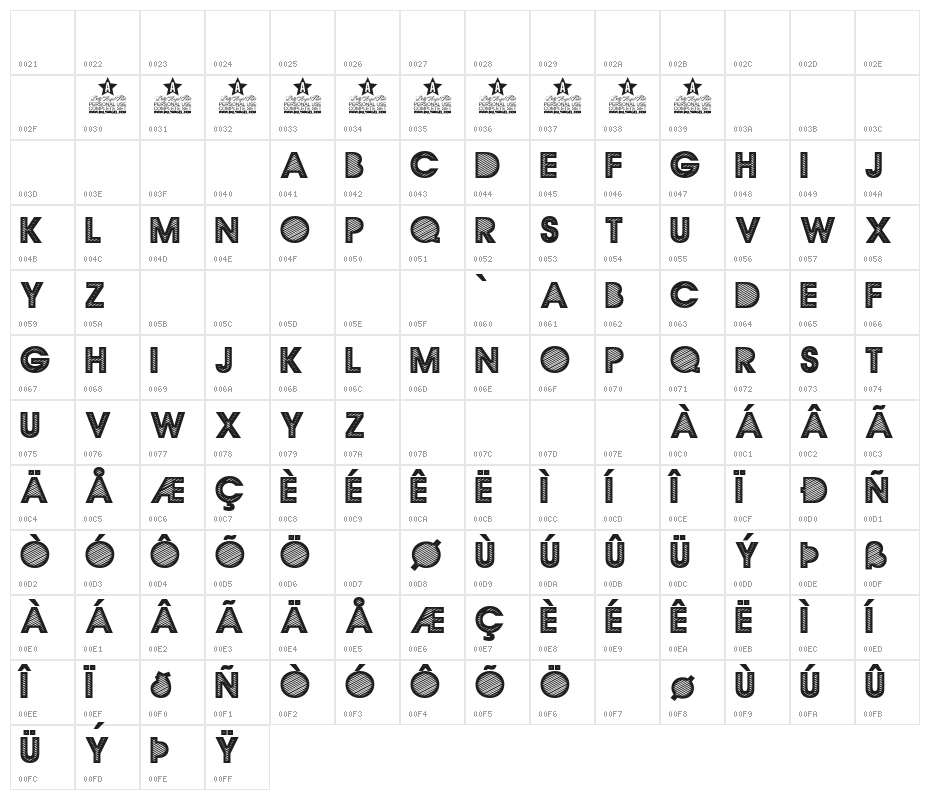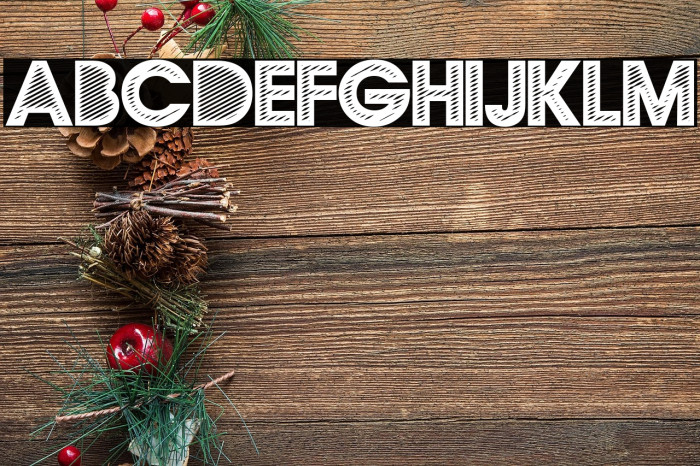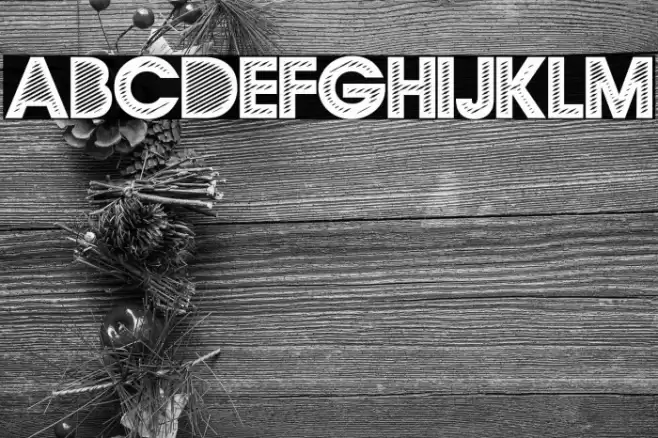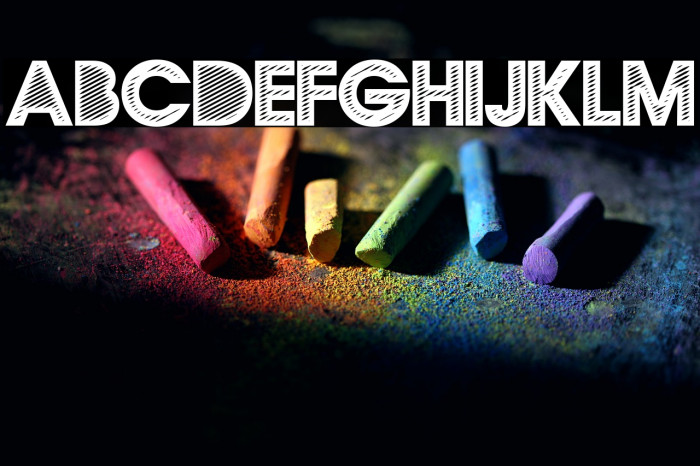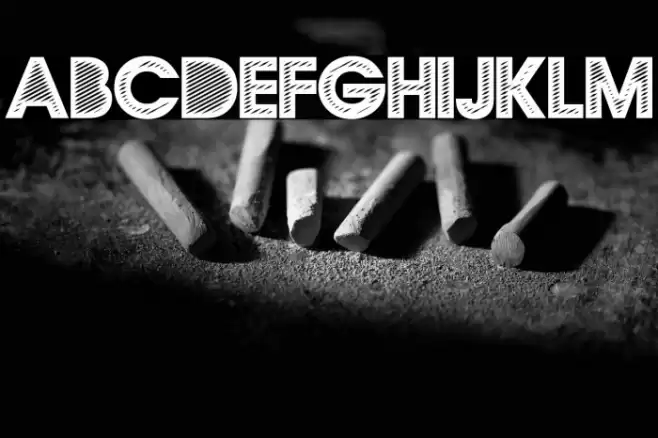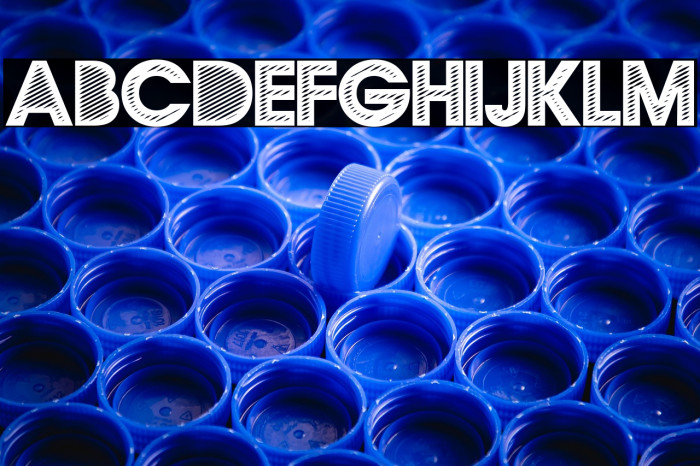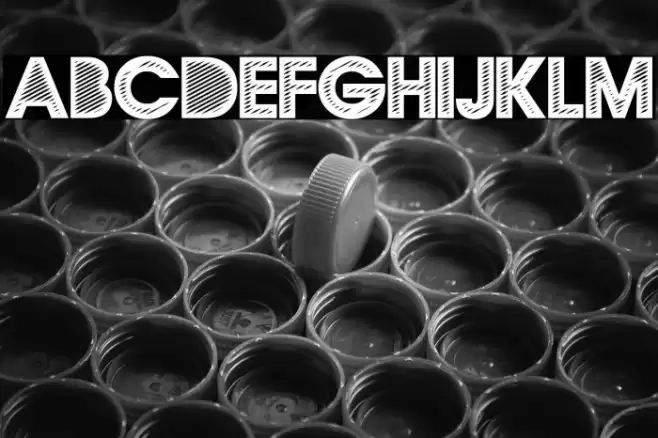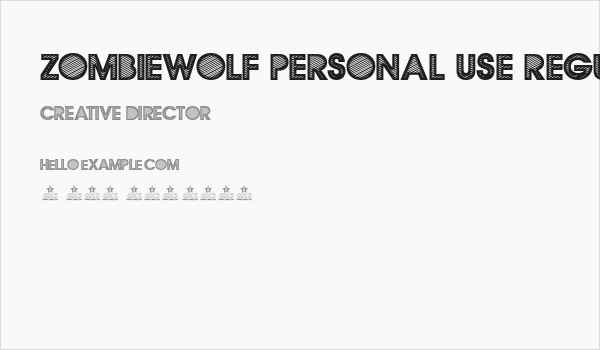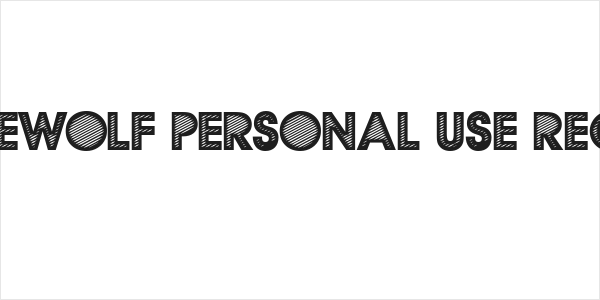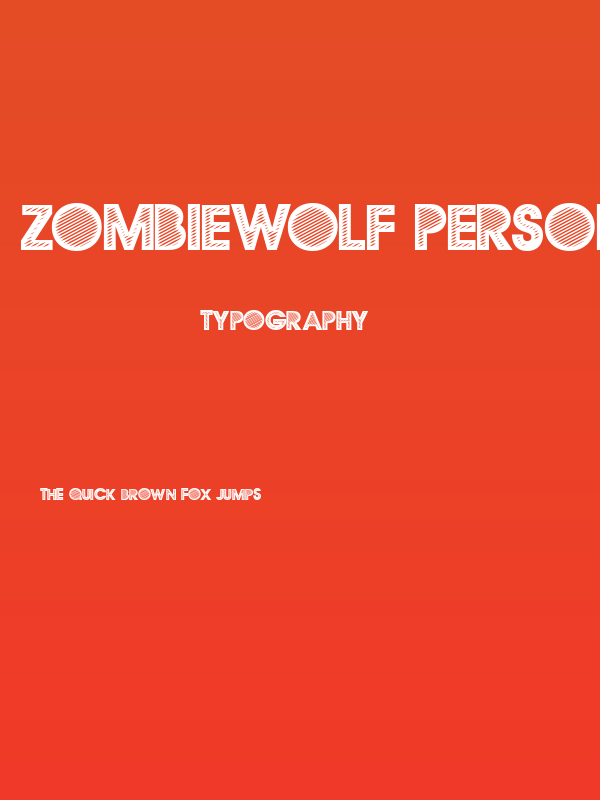
ZOMBIEWOLF PERSONAL USE Regular Font
ZOMBIEWOLF PERSONAL USE Regular Description
This font features a bold, decorative style with a unique striped pattern inside each character. The uppercase letters are designed with a strong presence, making them ideal for attention-grabbing headlines or titles. The font's playful yet structured appearance is enhanced by its consistent line work and geometric shapes. The absence of lowercase letters and numbers suggests a focus on impactful, large-scale text applications. The overall design is modern and eye-catching, suitable for creative projects that require a distinctive and memorable typeface.
| Proposed Projects | Ideal for posters, logos, branding, and any project needing a bold, eye-catching typeface. |